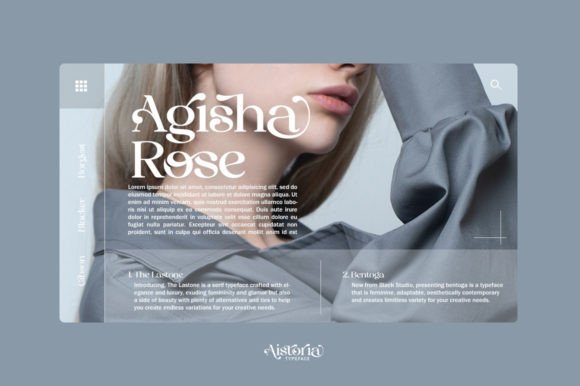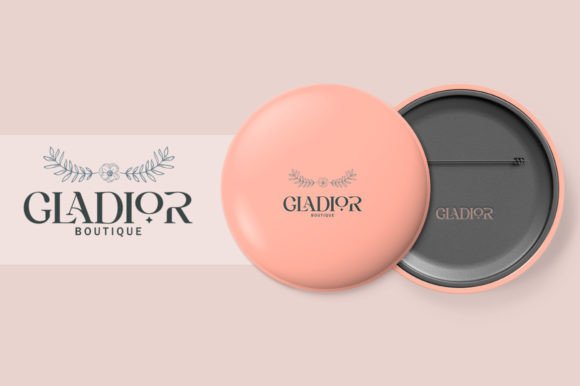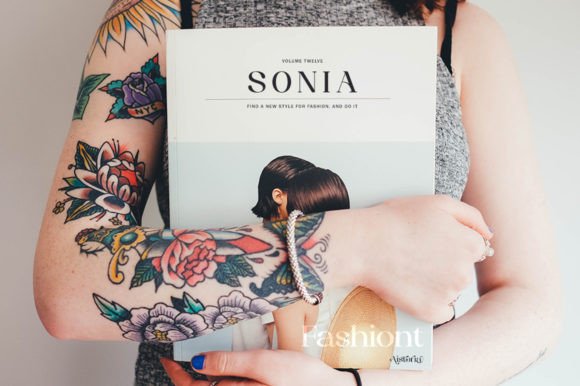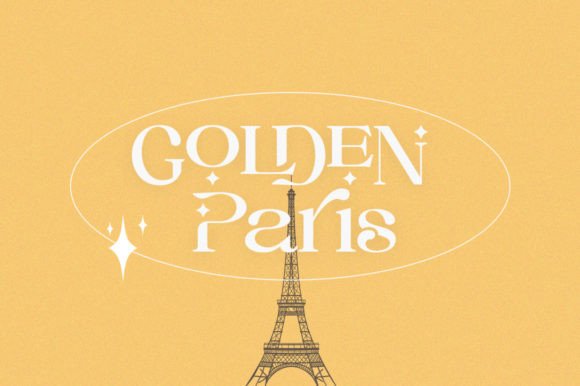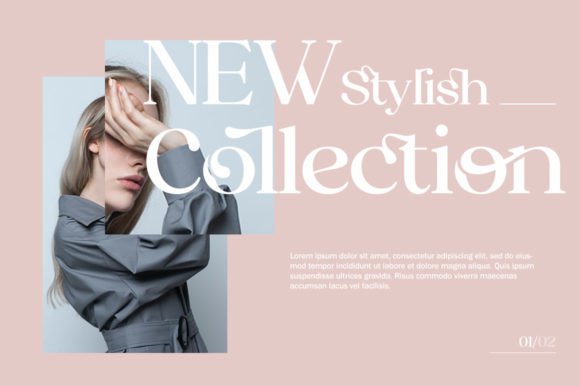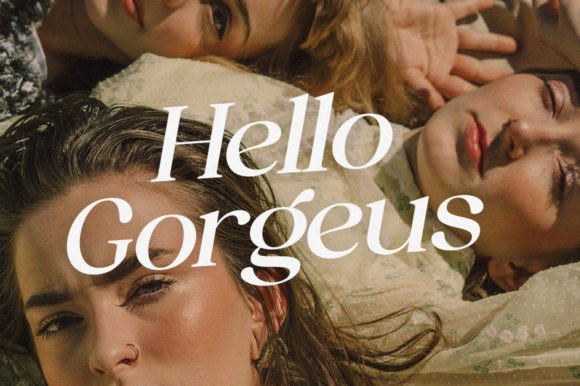
Aistoria Font: Elevate Your Designs with Elegance and Sophistication
In the world of typography, a font can make or break a design. Aistoria Font is a game-changer, offering a unique blend of femininity, adaptability, and contemporary aesthetics. This stunning typeface is designed to create limitless variety for your creative needs, making it a must-have for designers and crafters alike.
Unleash Your Creativity with Aistoria’s Luxurious Strokes and Voluptuous Curves
Aistoria Font boasts striking contrasts and subtle details that come together to create a beautiful and powerful statement for any typographic composition. The font’s luxurious strokes and voluptuous curves blend glamour with contemporary aesthetics, making it perfect for projects that demand sophistication and elegance.
Whether you’re working on a branding project, packaging design, or digital media, Aistoria Font is the perfect choice. Its versatility allows it to seamlessly adapt to various design styles, ensuring that your work stands out from the crowd.
PUA Encoding: Effortless Access to Glyphs and Swashes
One of the standout features of Aistoria Font is its PUA (Private Use Area) encoding. This means that you can access all glyphs and swashes effortlessly, giving you complete creative control over your typography. With Aistoria, you can easily swap out characters, add flourishes, and experiment with different combinations to create a truly unique look.
Endless Design Possibilities with Aistoria
Aistoria Font offers endless design possibilities, making it a valuable addition to any designer’s toolkit. Here are just a few ways you can use Aistoria to elevate your designs:
- Branding and Logo Design: Create stunning logos and brand identities with Aistoria’s elegant and sophisticated letterforms.
- Packaging Design: Add a touch of luxury to your packaging designs with Aistoria’s beautiful and intricate typography.
- Digital Media: Use Aistoria to create eye-catching social media graphics, blog posts, and website headers that demand attention.
- Stationery and Invitations: Create gorgeous stationery, invitations, and greeting cards with Aistoria’s elegant and refined typography.
Why Choose Aistoria Font?
With so many fonts available, why choose Aistoria? Here are just a few reasons why Aistoria Font stands out from the crowd:
- Unique and Versatile: Aistoria offers a unique blend of femininity, adaptability, and contemporary aesthetics, making it perfect for a wide range of design projects.
- Elegant and Sophisticated: Aistoria’s luxurious strokes and voluptuous curves create a beautiful and powerful statement for any typographic composition.
- Effortless Customization: With PUA encoding, you can access all glyphs and swashes effortlessly, giving you complete creative control over your typography.
Aistoria Font is a game-changing typeface that offers a unique blend of elegance, sophistication, and versatility. With its luxurious strokes, voluptuous curves, and effortless customization options, Aistoria is the perfect choice for designers and crafters looking to elevate their designs. Whether you’re working on a branding project, packaging design, or digital media, Aistoria Font is sure to make a lasting impression.